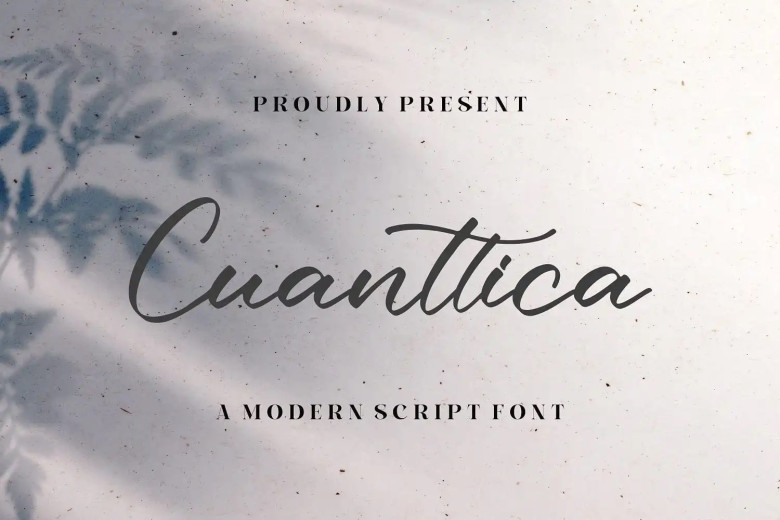
Cuanttica Font
Integritype Studios’ Cuanttica Modern Script Font is an elegant modern script font. Ideal for logos, branding, homewares design, product packaging designs, mugs with quotes on them and posters as well as shopping bag t-shirt covers and covers as well as business cards, greeting cards, invitation cards, labels or photography projects that require high-end taste this premium font is great choice for high-end tasteful projects such as logos.
Cuanttica Calligraphy Font